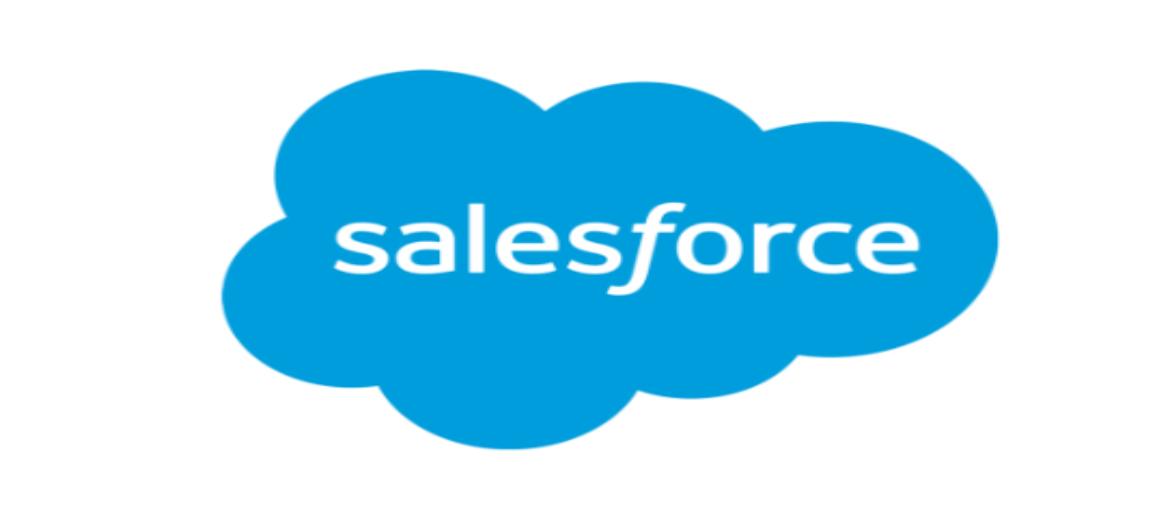
Salesforce Font
The Salesforce Font is a sleek, modern sans-serif typeface that embodies clarity, professionalism, and reliability—key characteristics of the world-leading CRM company. Its clean, balanced letterforms convey trust and accessibility while maintaining a polished and contemporary aesthetic across all brand communications.